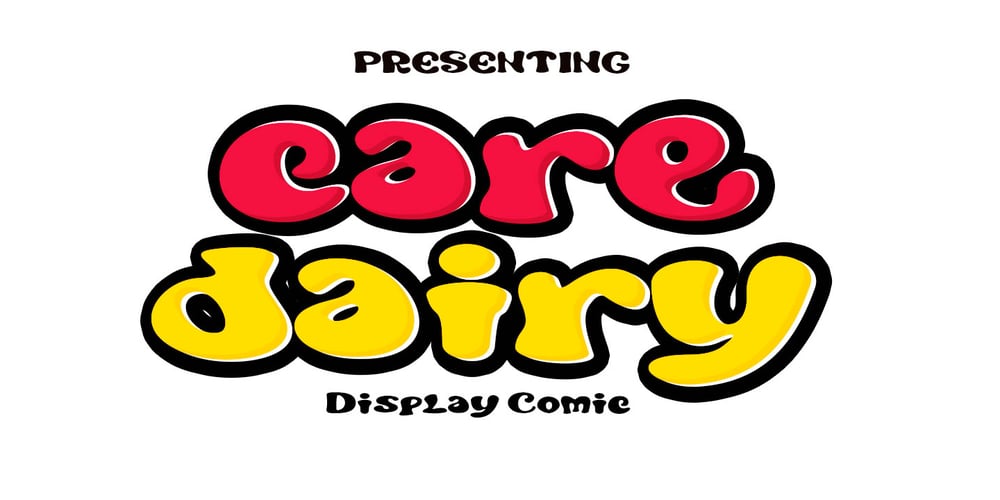
Care Dairy Font Family was designed by khaidir and published by Gatype. Care Dairy contains 1 styles and family package options. Care Dairy is a cute and fun display font with an original comic style. Use these display fonts to add to your design library in an easy way to find custom comic display variations on any design idea you can think of!Great for any type of logo, Sticker, Packaging design, Cricut Project, headlines, brand identity, t-shirt or apparel industry, posters, magazines, books, YouTube, Instagram, websites or your creative design projects.Enjoy!